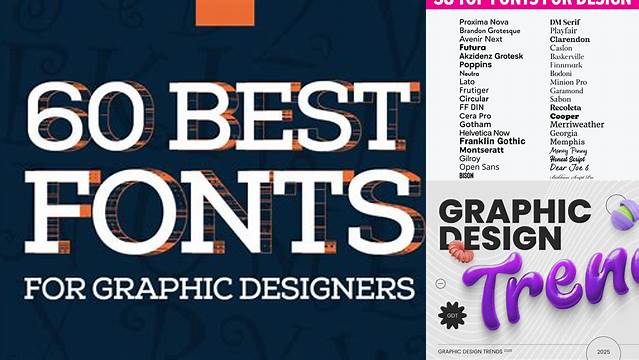
Best Graphic Design Fonts In 2025: Top Trends & Tips
Hey design enthusiasts! Get ready to dive into the exciting world of typography! As we gear up for 2025, the landscape of graphic design fonts is evolving, and it's time to equip ourselves with the knowledge of what's trending and what's going to make our designs pop. In this article, we'll explore the best graphic design fonts 2025 that are set to dominate the design scene. We're talking about those perfect typefaces that will not only capture attention but also effectively convey your message. Whether you're a seasoned designer or just starting out, understanding these font trends is crucial for staying ahead of the curve. So, buckle up, guys, and let's get started on this typographic journey!
1. Top Trending Graphic Design Fonts for 2025
Alright, folks, let's kick things off with the fonts that are predicted to be all the rage in graphic design fonts 2025. These fonts aren't just about aesthetics; they're about functionality, readability, and the ability to inject personality into your projects. We're seeing a shift towards a blend of classic and modern styles, with a focus on versatility. Designers are leaning towards fonts that can work across various mediums, from web design to print materials, ensuring consistency and impact. Think of fonts that can seamlessly adapt to different branding needs, offering a diverse range of weights and styles within the same family. This gives designers the flexibility to create dynamic and cohesive visual identities. Also, in graphic design fonts 2025, we'll notice a rise in fonts that are optimized for digital screens, reflecting the ever-increasing importance of digital platforms. This means fonts that are clear, crisp, and easy on the eyes, even at smaller sizes. The use of variable fonts, which allow for dynamic adjustments to weight, width, and other characteristics, will also become more prevalent, offering designers greater control and creative freedom. Moreover, we are looking at fonts that reflect sustainability and social awareness, embodying the values of brands. This isn't just about picking pretty fonts; it's about choosing typefaces that tell a story and connect with audiences on a deeper level. So, get ready to see a mix of bold, playful, and elegant typefaces that are designed to make a statement.
1.1. Serif Fonts Making a Comeback
Serif fonts, those classic typefaces with the little decorative strokes at the end of each letter, are staging a major comeback in the best graphic design fonts 2025. Often associated with elegance and tradition, serifs are being reimagined for the modern age. We're seeing designers experimenting with contemporary twists on these timeless classics, introducing more streamlined forms and bolder weights to enhance readability and visual appeal. These updated serif fonts are perfect for conveying a sense of sophistication and authority, making them ideal for luxury brands, editorial design, and any project where a touch of refinement is desired. One notable trend involves pairing serifs with unexpected design elements, such as geometric shapes or vibrant color palettes, to create a visually striking contrast. This juxtaposition helps to give serifs a fresh, modern feel while still retaining their inherent charm. Designers are also exploring different optical sizes within the same font family, ensuring that the serif fonts work well in both large headlines and small body text. This adaptability is crucial for creating consistent and effective designs across various applications. The resurgence of serif fonts in graphic design fonts 2025 is a clear indication that classic styles continue to resonate with audiences, and designers are finding innovative ways to keep them relevant in a constantly evolving visual landscape.
1.2. Modern Sans-Serif Fonts Take Center Stage
Sans-serif fonts, known for their clean lines and minimalist aesthetic, will continue to dominate the design world in graphic design fonts 2025. They're the workhorses of the design industry, prized for their versatility and readability across various platforms. In the coming year, expect to see a rise in more refined and expressive sans-serif fonts. Designers are moving beyond the basic geometric sans-serif fonts and exploring a wider range of styles, including those with subtle curves, unique letterforms, and a touch of personality. These modern sans-serif fonts are perfect for creating a contemporary and approachable look, making them ideal for tech companies, startups, and any brand that wants to project a sense of innovation and modernity. What's more, in graphic design fonts 2025, there will be a greater focus on font families that offer a wide range of weights and styles, allowing designers to create a consistent visual identity across all their projects. This flexibility is essential for designing everything from websites and mobile apps to print materials and social media graphics. Moreover, look for sans-serif fonts optimized for digital use, with clear and legible letterforms that look great on screens of all sizes. Variable fonts, which allow for dynamic adjustments to weight and width, will also become more prevalent, offering designers greater control and creative freedom. It's all about creating a modern and accessible experience.
1.3. Display Fonts for Eye-Catching Headlines
Display fonts are your go-to choices when you want to grab attention and make a bold statement. In graphic design fonts 2025, these fonts are expected to be more innovative and expressive than ever before. Designers are experimenting with a variety of styles, from hand-drawn and script fonts to geometric and experimental typefaces. The goal? To create headlines and titles that are both visually stunning and memorable. Display fonts are ideal for branding, advertising, and any design project where you want to make a lasting impression. Think of them as the stars of your design, drawing the eye and setting the tone for your entire project. Expect to see a lot of custom-designed display fonts, reflecting the individuality and uniqueness of each brand. This includes typefaces with unique letterforms, unusual shapes, and unexpected details that help brands stand out from the crowd. The use of display fonts in graphic design fonts 2025 is a clear indicator that visual communication is more important than ever. The bold and playful fonts can create an immediate connection with the audience and give the message more impact. The key is to use these fonts sparingly, as they are best suited for headlines and short bursts of text. Moreover, the best display fonts will be designed to be both eye-catching and legible, ensuring that the message is not lost amidst the visual appeal.
2. Font Trends Shaping Graphic Design in 2025
Alright, let's dive into the broader trends that are shaping the world of typography in graphic design fonts 2025. These trends go beyond individual font choices and reflect the evolving preferences of designers and audiences. They also represent the way we consume information and interact with brands. Being in the know about these broader patterns helps you make informed decisions. You want to create designs that are not only visually appealing but also relevant and effective. These shifts in the design landscape are influencing how we create and experience visual content. From sustainability to accessibility, from inclusivity to technological innovation, we are seeing a variety of trends shaping the graphic design landscape. So, let's break it down.
2.1. Variable Fonts: The Future of Typography
Variable fonts are changing the game in graphic design fonts 2025, offering unparalleled flexibility and control. They allow designers to adjust the weight, width, slant, and other characteristics of a font within a single file. This means you can create a vast range of styles from one font family, making them incredibly versatile and efficient. This technology is especially useful for responsive design, where fonts need to adapt to different screen sizes and devices. You can easily adjust the font's weight or width to ensure readability and visual appeal across all platforms. Variable fonts are also excellent for animation and creating dynamic designs. Designers can create smooth transitions between different font styles, adding an extra layer of visual interest. The ability to fine-tune fonts in this way opens up new creative possibilities and streamlines the design process. Moreover, in graphic design fonts 2025, we will continue to see variable fonts being used for branding. Designers can use them to create unique and consistent brand identities. This will ensure the brand has a distinctive and engaging visual style across all touchpoints. By allowing the use of multiple font variations, it helps a brand tell a more expressive story.
2.2. The Rise of Hand-Drawn and Script Fonts
Hand-drawn and script fonts bring a touch of personality and authenticity to any design, and their popularity is expected to increase in graphic design fonts 2025. These fonts add a human touch that can create an emotional connection with the audience. They are perfect for brands that want to project warmth, creativity, or a sense of exclusivity. Whether it's a flowing script for a logo or a quirky handwritten font for a headline, these typefaces inject a dose of personality into your design. They are a great choice for businesses that want to stand out from the crowd and project a sense of creativity and innovation. Hand-drawn fonts often appear in logos, packaging, and other branding elements, as they can create a feeling of uniqueness and craftsmanship. These fonts are also popular in social media, where they bring a natural and informal vibe. Furthermore, designers are exploring new and creative ways to use hand-drawn and script fonts, combining them with other design elements to create unique visual styles. In graphic design fonts 2025, expect to see more designers embracing hand-drawn and script fonts, bringing a fresh perspective to typography and enhancing the emotional impact of their designs.
2.3. Typography and Accessibility
Accessibility is a major focus in the design world, and typography plays a key role. In graphic design fonts 2025, designers will prioritize fonts that are readable and inclusive. This means choosing typefaces with clear letterforms, sufficient contrast, and appropriate spacing. Making sure that your designs are accessible benefits everyone. It's not just about complying with guidelines; it's about making sure your message can be understood by as many people as possible. This includes considering the needs of people with visual impairments, dyslexia, and other cognitive differences. Designers will need to take into account factors such as font size, line height, and the use of color contrast to ensure readability. Sans-serif fonts often perform well in terms of readability, as do fonts with clear and distinct letterforms. Moreover, with graphic design fonts 2025, the rise of accessibility-focused typography is an important development. This ensures that design is more inclusive and that the message reaches a wider audience. It emphasizes the crucial role that good typography plays in effective and ethical design. This is important for social responsibility, and it also helps designers create designs that are effective and user-friendly.
3. Font Pairings and Design Tips for 2025
Okay, guys, now that we've covered some of the top font trends, let's talk about how to use them effectively! Choosing the right font is only part of the battle; the way you pair them and use them in your designs is equally important. We'll be going over some crucial font pairings to boost your designs, and how to optimize these pairings. Let's get into some design tips and tricks to use in graphic design fonts 2025. Learning to pair fonts is a skill that improves with practice. It's about finding harmony between different typefaces and making sure they complement each other. So, let's get to it.
3.1. Classic Font Pairings That Always Work
Some font pairings are tried and true, and they work wonders in almost any design. Combining a classic serif font with a clean sans-serif font is a surefire way to create a balanced and visually appealing design. This combination is perfect for websites, print materials, and any project where readability is key. The contrast between the two font styles creates visual interest and helps guide the reader's eye. Consider pairing a serif font like Playfair Display for headlines with a sans-serif font like Open Sans for body text. This combination offers a sense of sophistication and readability. Another great pairing is a bold sans-serif font for headings and a lighter serif font for body text. In graphic design fonts 2025, you can use these fonts in web design, creating a visually striking experience. To maintain a sense of consistency, use the same font family but with different weights or styles. This can make a design look unified and professional. Always check that the chosen fonts complement each other in terms of style, weight, and overall feel. This will ensure that the design is well-balanced and easy on the eyes. Mastering classic font pairings is an essential skill for any designer.
3.2. Modern Font Pairings to Consider
For a more contemporary look in graphic design fonts 2025, you can consider modern font pairings that reflect the latest trends. Experiment with combining a geometric sans-serif font with a playful display font. This combination can be ideal for branding and marketing materials, adding a touch of personality. Consider the typefaces to be used on social media, where a balance of design and personality is key. These are also good for websites that aim for a contemporary look. Another option is to pair a bold sans-serif with a hand-drawn font, which creates a balance between formality and informality. This can be effective for businesses that want to create a friendly and approachable brand image. When selecting fonts, think about the overall tone and style you want to project. Whether it is for a website or branding material, consider your audience to determine the best way to create that impact. Modern font pairings offer a way to create a distinct and memorable design. You can look for font pairings that reflect your brand's personality. A modern combination gives designs a fresh and innovative feel.
3.3. Tips for Effective Font Usage
Here are some practical tips to help you use your fonts effectively in graphic design fonts 2025. First and foremost, prioritize readability. No matter how beautiful a font is, if it's not readable, it's not effective. Choose fonts that are clear, legible, and easy on the eyes, especially for body text. In other words, do not put style over function. Ensure sufficient contrast between the font and the background. This will enhance readability and make your text stand out. Use appropriate font sizes for different elements of your design. Headlines should be large and eye-catching, while body text should be comfortably readable. Be mindful of the line height and letter spacing. Proper spacing can greatly improve readability and the overall visual appeal of your design. Limit the number of fonts you use in a single design. Using too many fonts can make your design look cluttered and unprofessional. Stick to a maximum of two or three fonts, using different weights and styles from the same font family for variety. Test your design on different devices and screens. Ensure that your fonts look good on all screen sizes and resolutions. This is particularly important for web and mobile design. By following these tips, you can ensure that your fonts are used effectively, enhancing both the visual appeal and the functionality of your designs.
4. Where to Find the Best Graphic Design Fonts
Now that we have discussed what's trending, and how to effectively use fonts in your designs, you must know where to find these resources. Finding the right fonts is the key to elevating your designs. Fortunately, there are numerous resources available, from free font websites to premium font marketplaces. Let's explore some of the best places to discover and download fonts, both free and paid, to ensure you have access to a wide range of typographic options for your projects in graphic design fonts 2025.
4.1. Free Font Resources
Great news, guys! You don't always have to spend a fortune to get access to fantastic fonts. There are tons of amazing free font resources available. These resources are perfect for designers on a budget, or for those who simply want to experiment with different styles without making a financial commitment. Popular platforms include Google Fonts, which offers a vast library of open-source fonts that are perfect for web design. Font Squirrel is another excellent option, offering a curated collection of high-quality free fonts. Be sure to check the licensing of each font before you use it, to make sure it's suitable for your project. Some fonts are free for personal use only, while others are free for commercial use as well. Always read the terms and conditions before you download. Free font resources are a great way to expand your font library without breaking the bank. They can provide diverse typographic options for your projects in graphic design fonts 2025.
4.2. Premium Font Marketplaces
If you are looking for more advanced fonts and unique options, premium font marketplaces are the way to go. These platforms offer a wider selection of professional-grade fonts, often with more extensive character sets and design features. MyFonts is one of the most popular premium font marketplaces, offering a vast catalog of fonts from a variety of designers. Creative Market is another excellent option, providing a curated selection of fonts, graphics, and other design resources. When purchasing fonts from premium marketplaces, be sure to check the licensing terms carefully. This will give you the license to use the fonts on the specific projects you have in mind. Premium fonts often come with more comprehensive licensing options. This may include options for commercial use, web embedding, and other special features. Premium font marketplaces provide access to the most advanced fonts and unique options for your design in graphic design fonts 2025.
4.3. Font Licensing and Usage Rights
Understanding font licensing is crucial. It determines how you're allowed to use a font and what you're permitted to do with it. Before you download or purchase a font, take the time to carefully review the licensing terms. This will prevent any legal issues down the line. There are different types of font licenses. Some fonts are free for personal use but require a paid license for commercial use. Other fonts are licensed for specific projects, such as a website or a print publication. Make sure you choose a license that covers the intended use of the font. Always check the licensing details before using a font, as these terms can vary greatly depending on the font provider. Keep records of your font licenses, including the date of purchase and the terms of use. This will help you stay organized and make sure you are compliant with the licensing agreements. Staying informed about font licensing and usage rights is essential. This helps you protect yourself from potential copyright issues. It also guarantees that you are using the fonts appropriately for your projects in graphic design fonts 2025.
5. Incorporating Fonts into Your Design Workflow
Alright, you've got the fonts, now what? Integrating the right fonts into your design workflow is key to creating a seamless and efficient process. This will enhance your creativity and productivity, and make your design experience a more enjoyable one. Let's talk about how you can successfully incorporate fonts into your workflow, from organization to consistent branding in graphic design fonts 2025.
5.1. Organizing Your Font Library
Keeping your font library organized can be a game-changer. It helps you find the fonts you need quickly, and it also ensures consistency across your design projects. Create a system to organize your fonts. This might involve using font management software, which allows you to categorize and tag your fonts. Name your fonts with consistent and clear labels. Include the font name, style, and any relevant information, such as the designer or the source. Group fonts by category. This will make it easier to browse your library and find the perfect font for your project. Consider using font management software, which is essential for keeping your fonts organized. Font management software can also enable you to activate and deactivate fonts easily. This is essential for managing the fonts on your system and ensuring your designs are consistent. It helps you preview your fonts. This gives you a preview and test of the font to help you decide which fonts to choose for your project. An organized font library is a critical step in the design process. It will save you time and frustration and also help you create more consistent and professional-looking designs.
5.2. Choosing Fonts for Branding Projects
When choosing fonts for branding projects, take your time and do it with a strategic approach. These fonts represent the brand's personality and values. Choose a font that complements the brand's identity and aligns with its target audience. Consider the brand's overall aesthetic and the message it wants to convey. A playful brand may require a playful font. A sophisticated brand may require a more elegant font. Establish a consistent font usage throughout all brand touchpoints. This will help create a strong brand identity and recognition. Choose a primary font for headlines and a secondary font for body text. This will provide structure and visual interest. In graphic design fonts 2025, take time to test your font selection. Create mockups to see how the fonts look in different applications, such as websites, print materials, and social media graphics. Consider any licensing restrictions. Ensure that the fonts are suitable for your intended use. These steps are essential for choosing fonts for your branding projects. It is important to choose the fonts that align with the brand's identity. It must also create a recognizable brand image.
5.3. Font Management Tools and Software
Font management tools and software are essential for any designer who wants to work efficiently and effectively. These tools simplify the process of managing your font library. They also enhance your productivity and give you control over your font collection. Popular font management software like Adobe Fonts provides a cloud-based solution. It also provides seamless integration with Adobe Creative Cloud applications. This will allow you to sync your fonts across multiple devices. FontBase is another option, offering a free and user-friendly interface for managing your fonts. RightFont is a premium option, offering powerful features and a clean interface. When choosing font management software, consider the features you need. Do you need font activation and deactivation features? Do you need font preview capabilities? Do you need to categorize your fonts? Choosing a tool that aligns with your workflow will help you stay organized and make your design process smoother. By using font management tools and software, you can streamline your font management process. It also ensures that your designs are consistent and your workflow is optimized.
6. The Future of Fonts: Predictions and Innovations
What does the future hold for graphic design fonts 2025? Well, the typographic landscape is always evolving, and it's exciting to see what the future holds. We will see greater integration of technology and a focus on adaptability and inclusivity. Let's dive into some predictions and innovations that are set to shape the world of typography in the years to come. These future trends will play a significant role in shaping how we communicate and experience visual content. From augmented reality to ethical design, typography will be on the leading edge of innovation.
6.1. Fonts in Augmented and Virtual Reality
Augmented reality (AR) and virtual reality (VR) are transforming the way we interact with digital content, and fonts are a key part of this transformation. Expect to see more fonts optimized for use in AR and VR environments in graphic design fonts 2025. This means designing fonts that are readable and visually appealing, even when displayed in immersive environments. The unique challenges of AR and VR, such as limited screen real estate and the need for clear legibility in dynamic environments, will drive innovation in font design. Designers will have to consider factors like the font's three-dimensional appearance, its ability to adapt to different viewing angles, and its overall visual impact within the immersive environment. Moreover, we will witness the development of dynamic fonts that react to the user's movements and interactions. This includes fonts that change size, shape, or even color based on the user's viewpoint or the specific context of the AR or VR experience. This will provide greater interactivity and engagement. The integration of fonts into AR and VR will open up new creative possibilities. It will also change the way we perceive and experience typography.
6.2. Ethical Design and Font Choices
Ethical design is becoming increasingly important, and font choices are a part of this trend in graphic design fonts 2025. Designers are becoming more conscious of the social and environmental impact of their work. This includes making ethical font choices. Expect to see a greater emphasis on fonts that are created sustainably. Designers can choose fonts from foundries that prioritize environmental responsibility, or they can support the creation of new fonts that minimize their environmental footprint. The development of fonts that promote accessibility is also important. Designers must choose fonts that are easy to read for all users, including those with visual impairments. They must also consider the cultural context of the fonts and avoid using typefaces that are culturally insensitive or offensive. By making ethical font choices, designers can contribute to a more sustainable and inclusive design industry.
6.3. The Integration of AI in Font Design
Artificial intelligence (AI) is already starting to have an impact on design, and it's set to play a bigger role in the future of font design in graphic design fonts 2025. AI can be used to automate aspects of font creation, generate new font styles, and even personalize fonts based on user preferences. Expect to see more AI-powered tools that can assist designers in creating and modifying fonts. This includes tools that can generate variations of existing fonts, generate new letterforms, or automatically optimize fonts for specific use cases. Moreover, we might see AI used to personalize fonts, allowing users to customize fonts based on their individual preferences. Imagine being able to adjust the weight, style, or even the shape of a font to suit your specific needs. This would provide greater control and personalization. AI is set to transform font design, creating new possibilities for creativity and efficiency. It will also revolutionize the way we interact with typography.
7. Conclusion: Embracing the Future of Typography
Alright, design aficionados, we've covered a lot of ground. We've looked at what's hot, what's evolving, and what's on the horizon for graphic design fonts 2025. Remember, the best fonts aren't just about aesthetics. They're about effective communication, accessibility, and the ability to connect with your audience. So, keep experimenting, keep learning, and keep pushing the boundaries of typography. Keep an open mind. Consider these evolving trends, and think about how you can integrate them into your work. Whether you are looking for a great font for a logo, or something for a website, be sure to utilize your newfound knowledge. Embrace the ongoing evolution and always be prepared for the exciting changes ahead. Keep creating, keep designing, and most importantly, keep having fun with it!